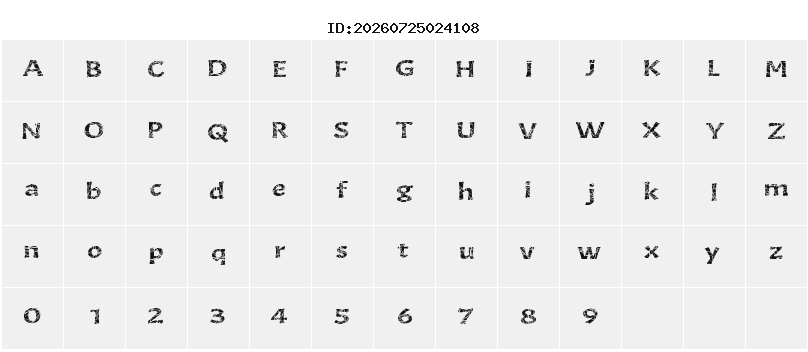
GourmetKing Preview
• Font Name: GourmetKing
• Font ID: GourmetKing:Version 1.00
• Full Font Name: GourmetKing
• Version: Version 1.00 July 23, 2013, initial release
• PostScript Name: GourmetKing
• Character Count: 72
• Designer: Xerographer Fonts Max Infeld
• Manufacturer: Xerographer Fonts
• Description: Made at Xerographer Studios in Chico,CA
About GourmetKing.ttf
GourmetKing.ttf is a modern, elegant sans-serif font designed for ultimate readability and visual harmony. Perfect for branding, headlines, web design, and print materials.